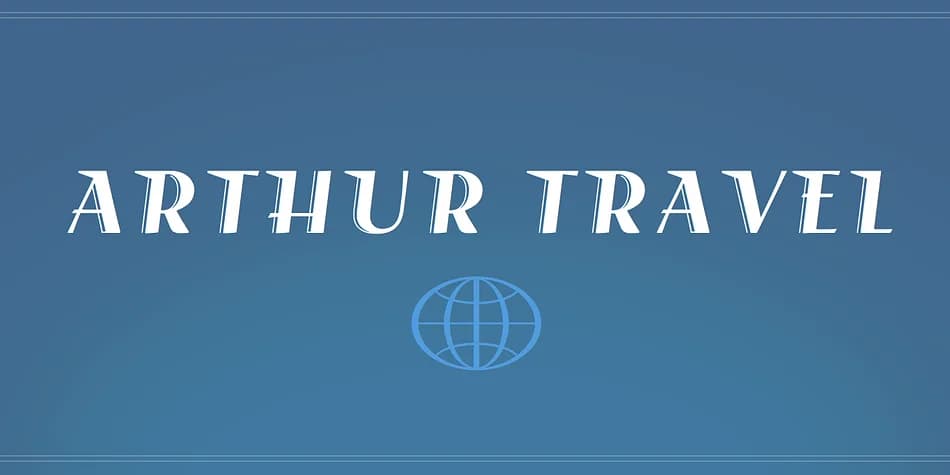
Arthur Travel by Andreas Stötzner is a decorative typeface that captures the refined spirit of mid-century aviation branding. The font channels that golden era when airline logos pushed boundaries with sleek letterforms and winged serifs that suggested motion and possibility. If you study the classic logos from the 1950s and 1960s, you'll recognize Arthur Travel's DNA in those timeless designs. It's a new addition to Stötzner's acclaimed Arthur family, drawing its structure from Arthur Sans Bold Italic to ensure coherence across his larger design system.
This typeface excels at lending character to designs that need vintage sophistication. Consider it for retro travel agency logos, luxury hotel branding with a nostalgic edge, mid-century book jacket titles, and upscale luggage label designs that evoke post-war elegance. The letterforms have an inherent lightness that works beautifully when you want movement and momentum without visual heaviness. Its italic lean means text set in Arthur Travel naturally suggests forward motion and optimism.
Arthur Travel Font is a decorative font that shines as a display or heading face. Pair it with a clean sans-serif or serif font for body text — the contrast creates a clear hierarchy while the two styles stay balanced and easy to read.